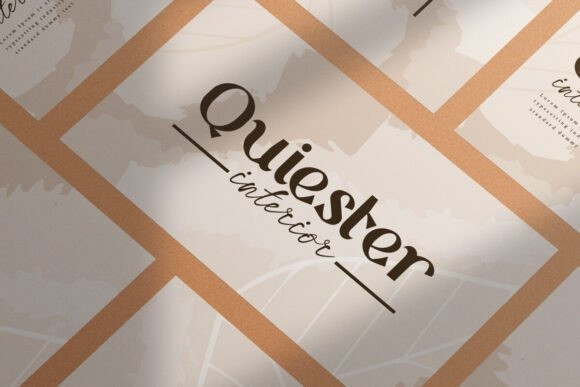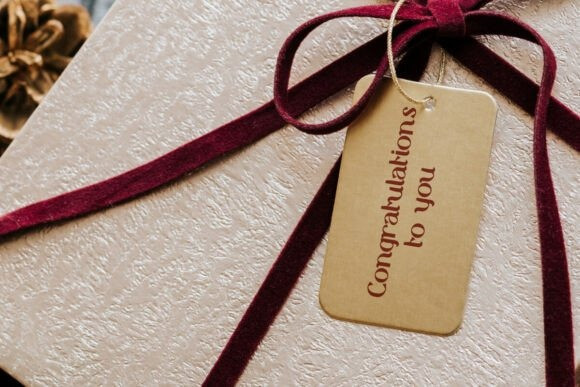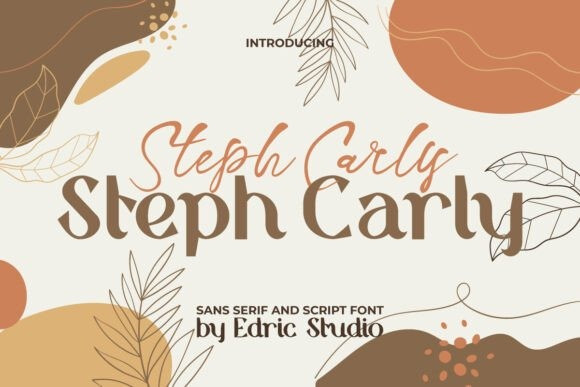
Steph Carly Script Font Duo
Steph Carly Script Font Duo comes with two different styles: Sans Serif Display and Handwriting Script. It has a full set of Basic Uppercase and Lowercase Characters, Numbers, Punctuation and Symbols. Sans Serif with alternate additions, to make it have different variations in character. Don’t forget that the script is also equipped with additional ligatures to add artistic value to perfectly bound. It will look stunning with an artistic touch of modern elegance that feels vintage so that a modern font is formed from the combination of these styles and is ready to make a unique stylish impression for almost all of your business industries, such as accessories and gifts, architect, boutique, events, fashion, florist, furniture, gardening, homeware, hotel, interior design, makeup artist, musician, real estate, travel, wedding, etc.